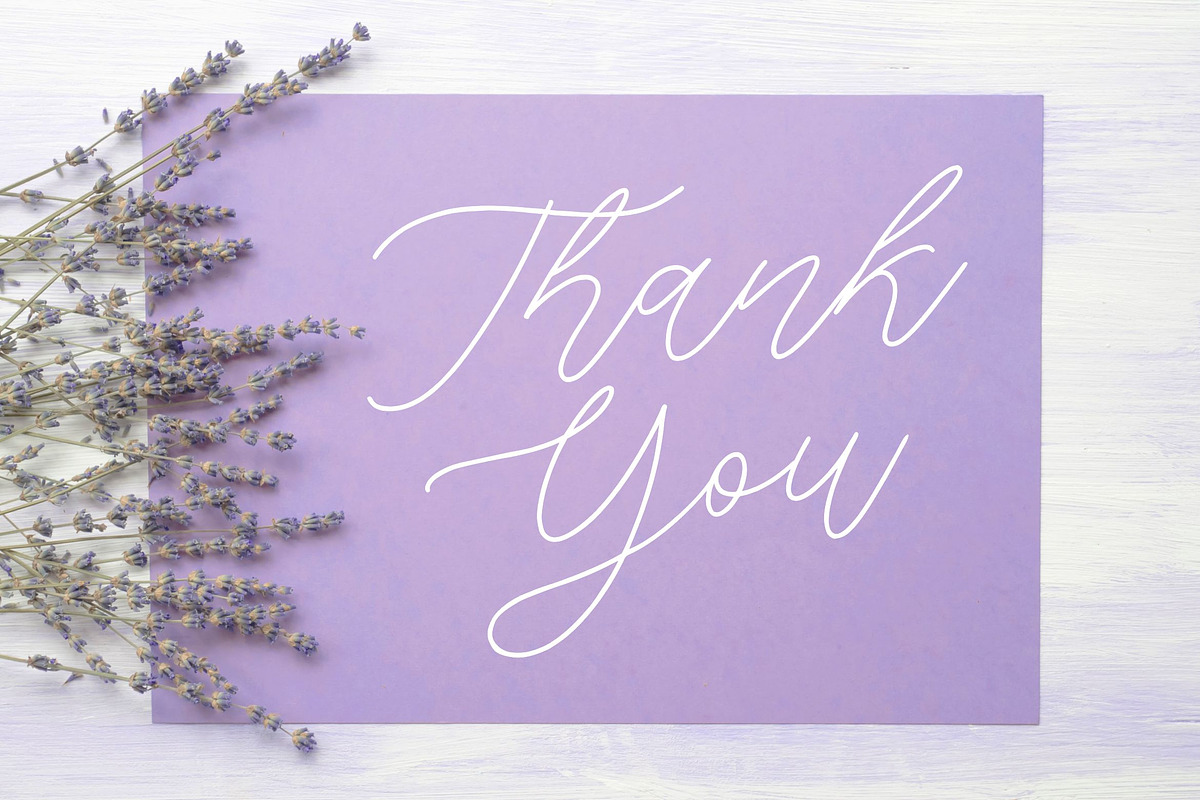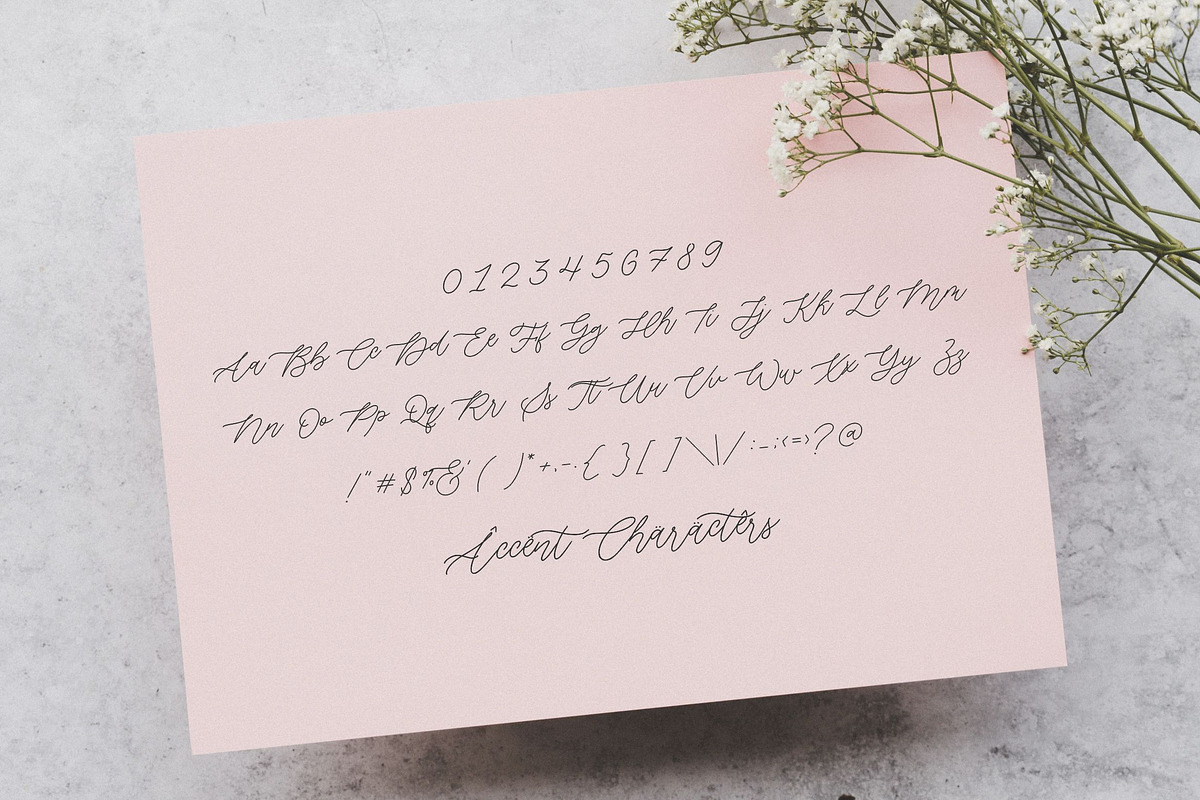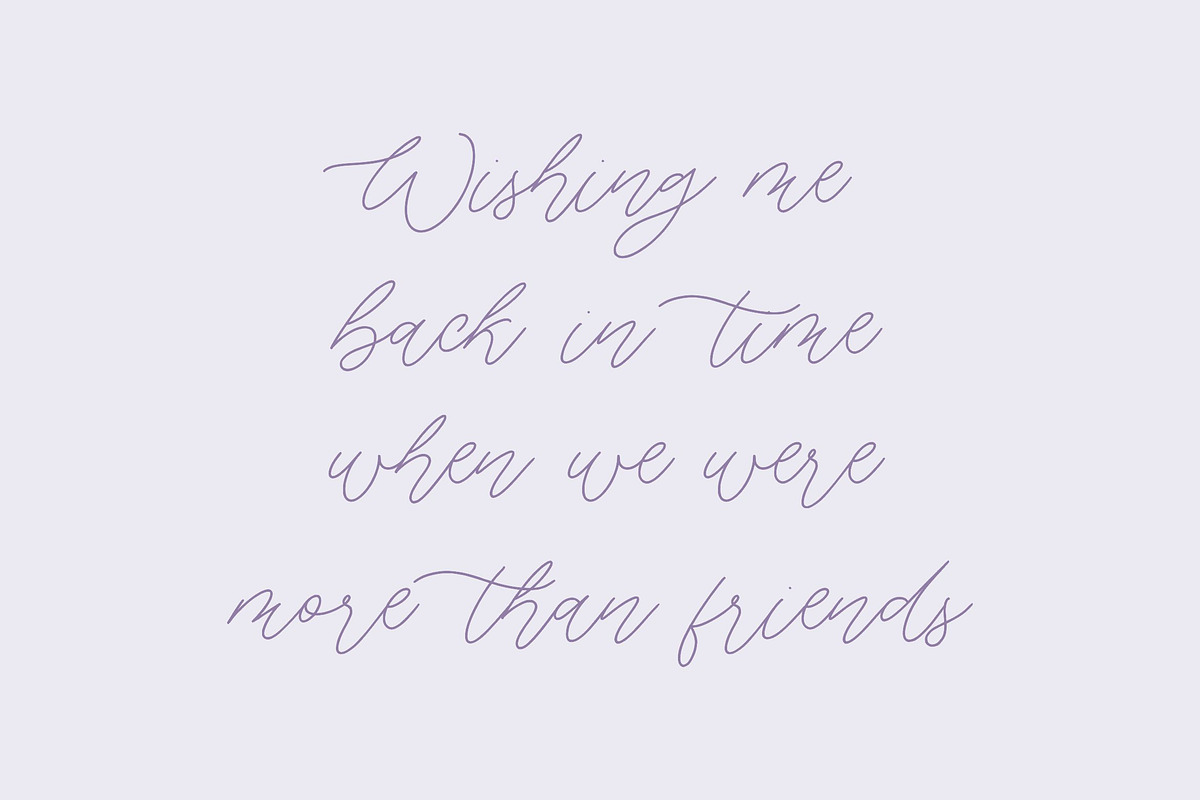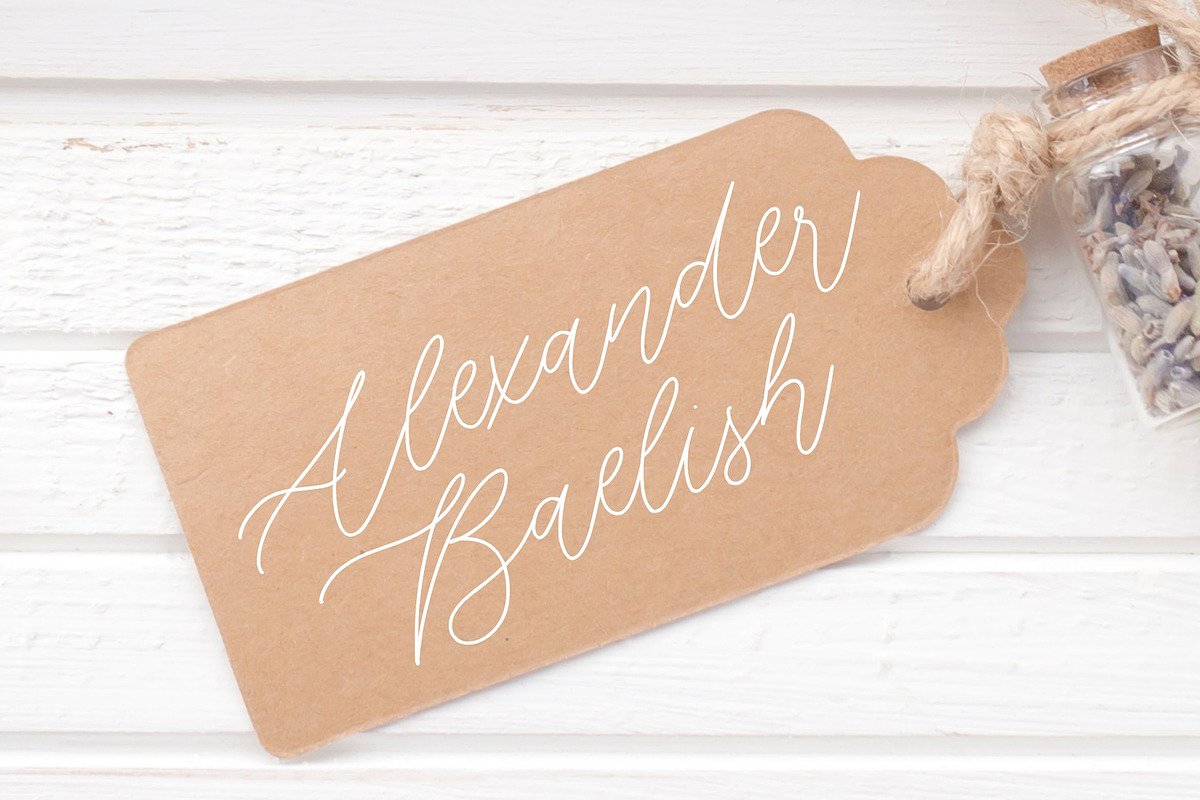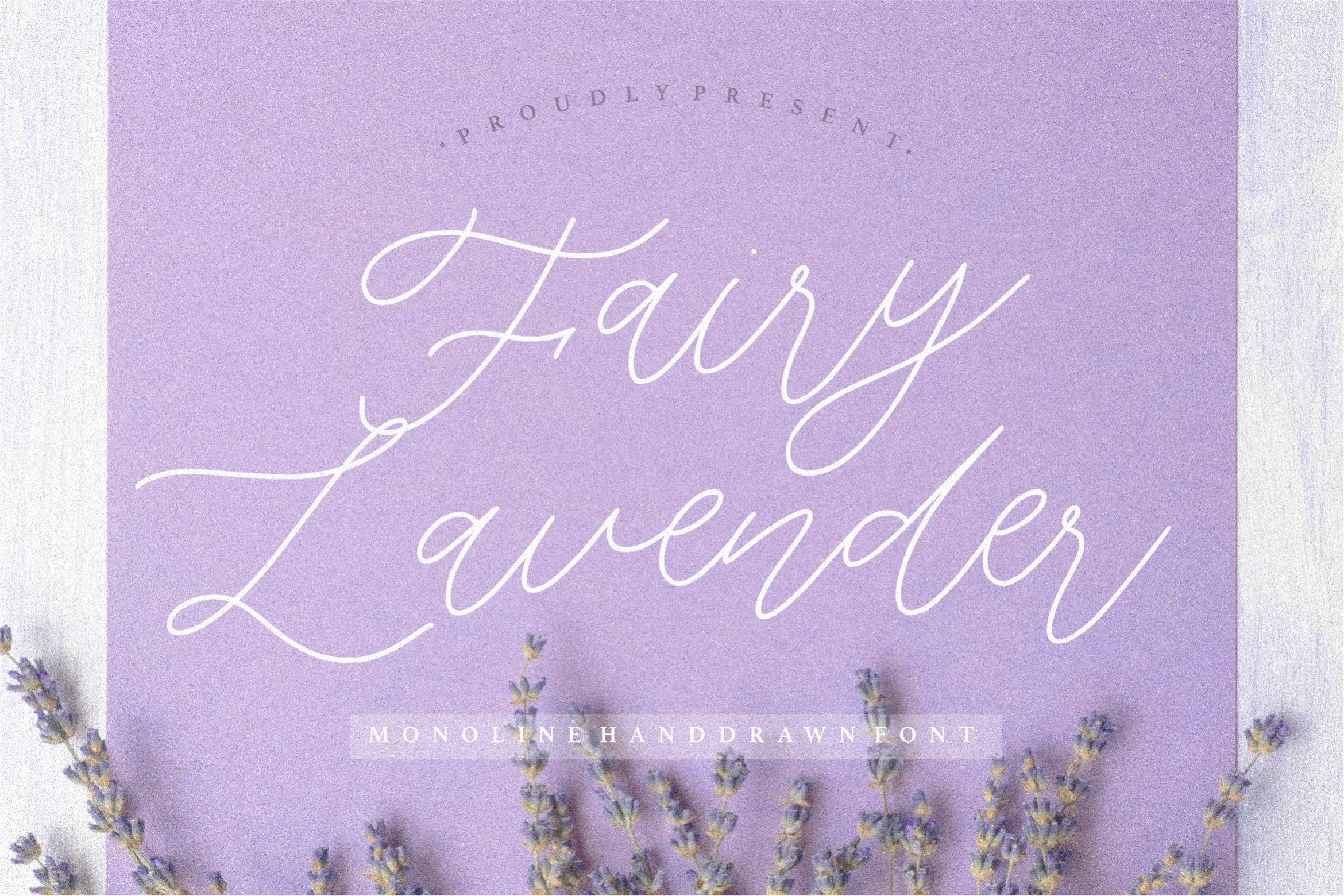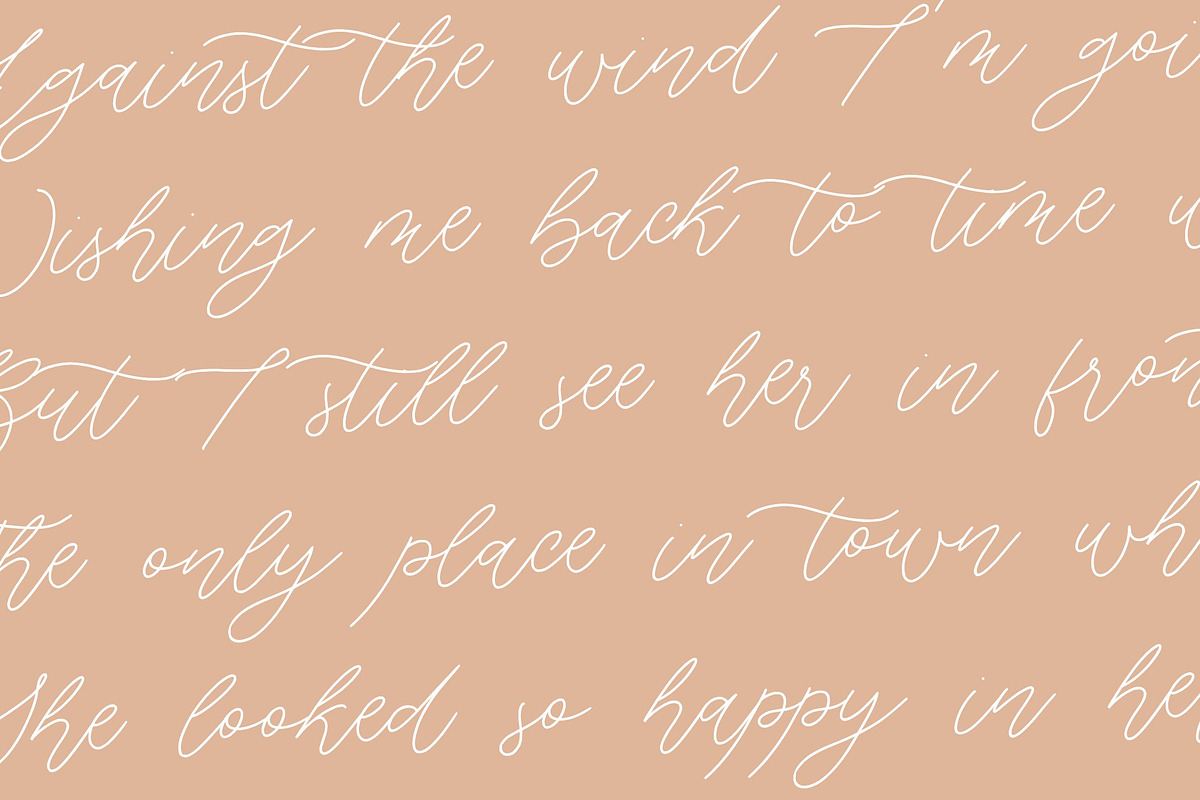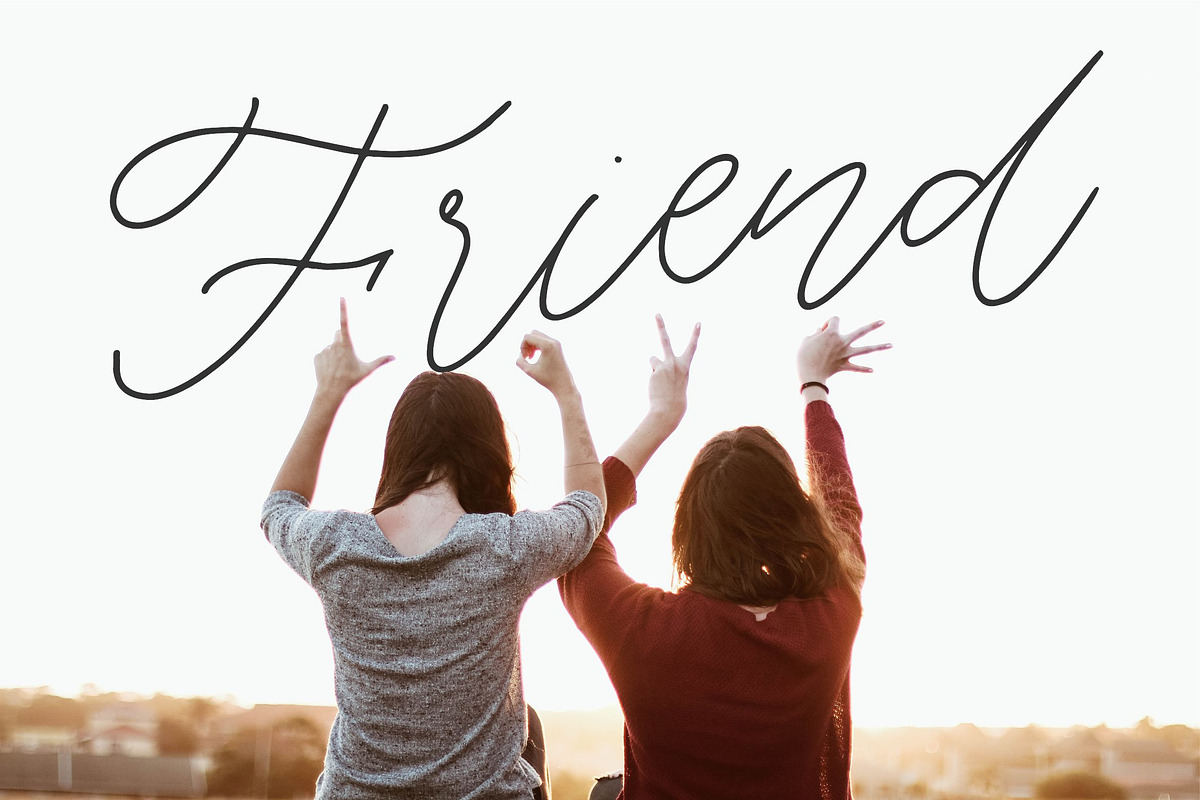
Fairy Lavender - Monoline Font
Proudly Present, Fairy Lavender Font
Fairy Lavender is a delicate, elegant and flowing handwritten font. It has beautiful and well balanced characters and as a result, it matches a wide pool of designs. Add it to your most creative ideas and notice how it makes them come alive!